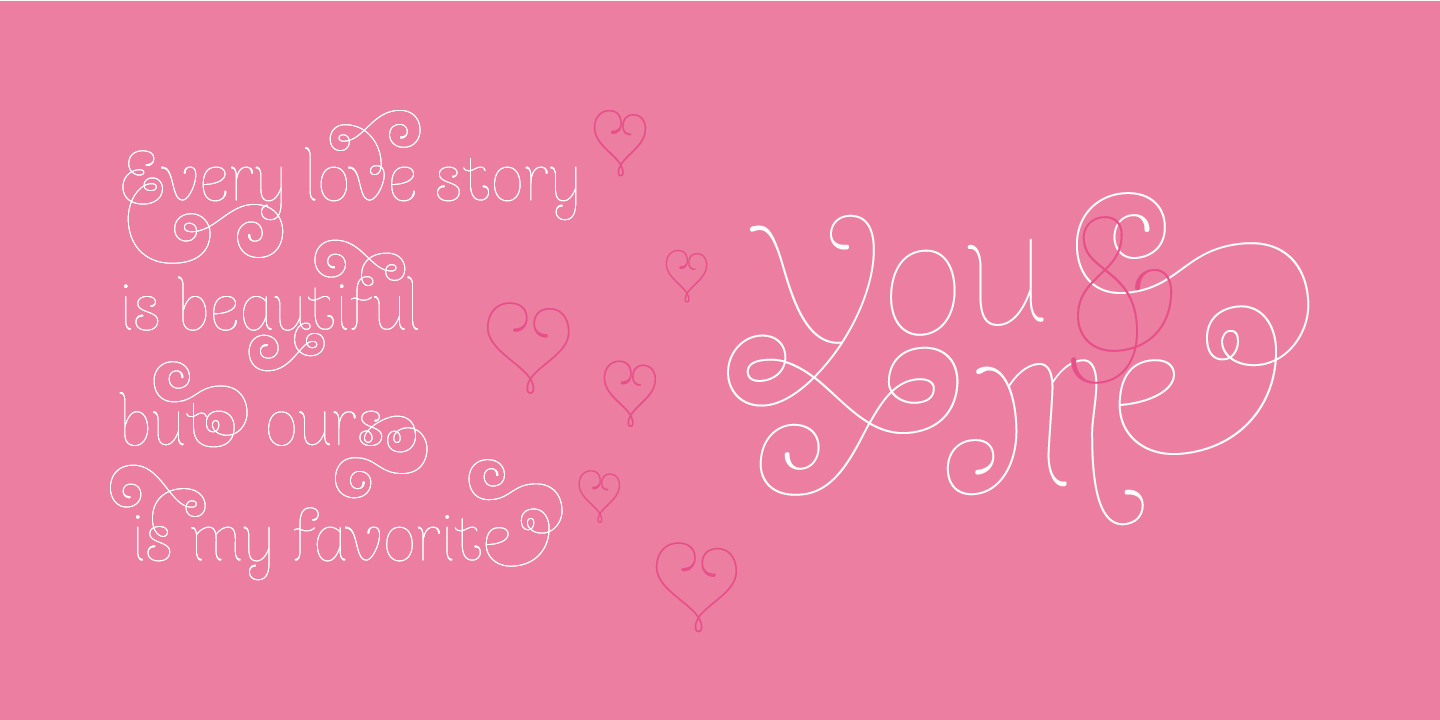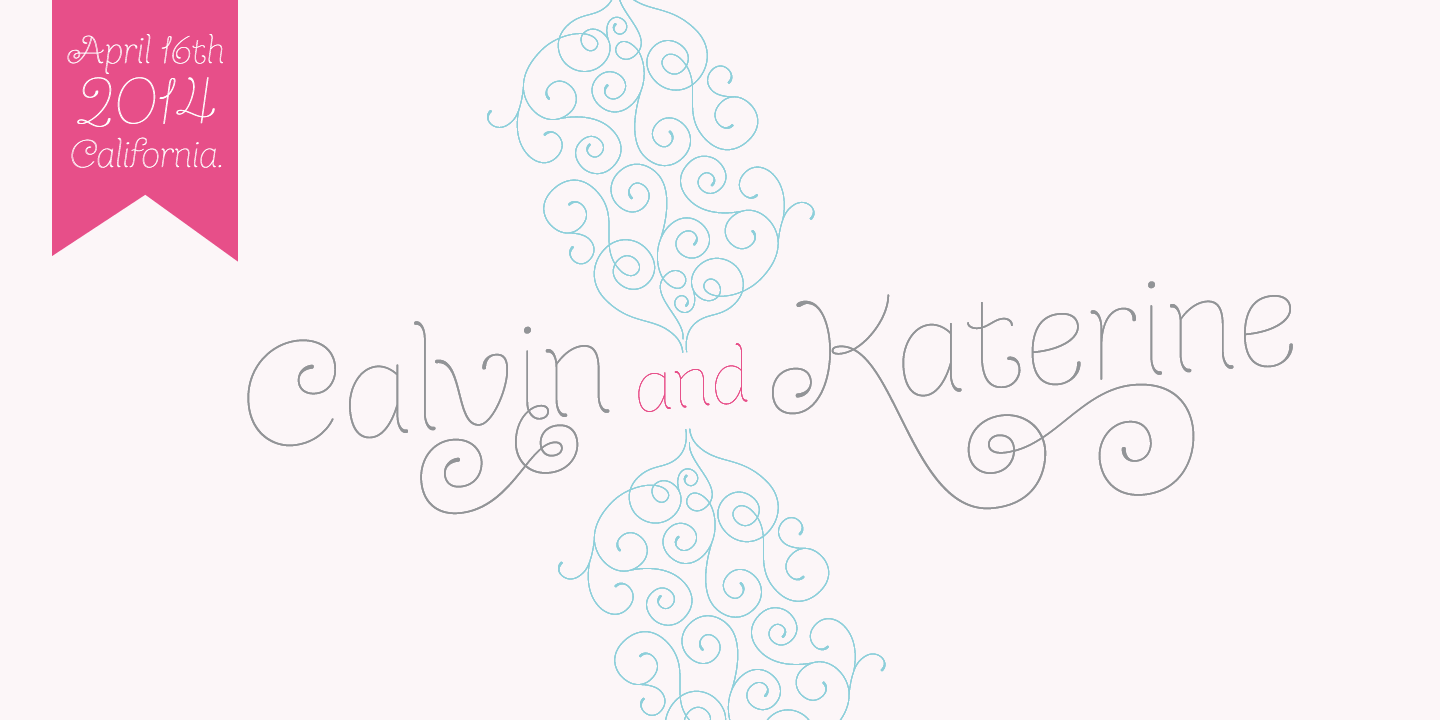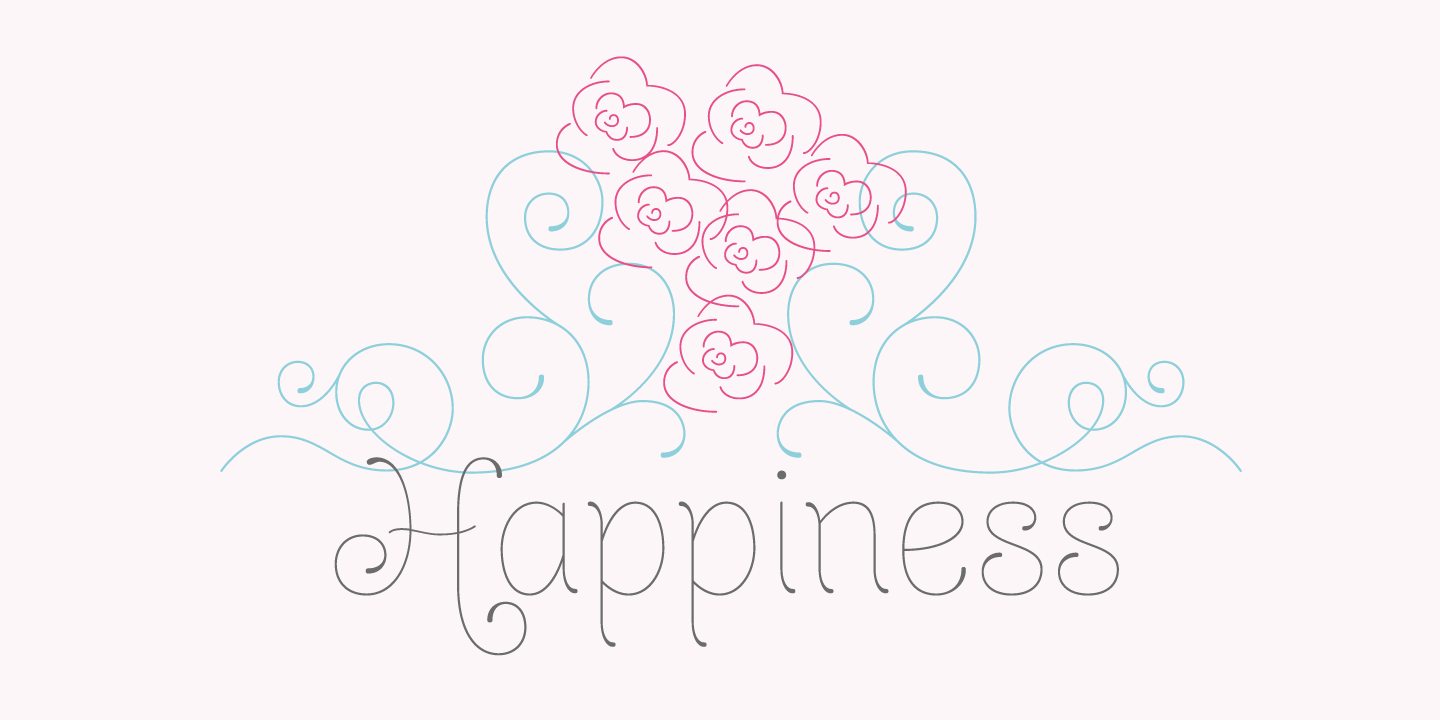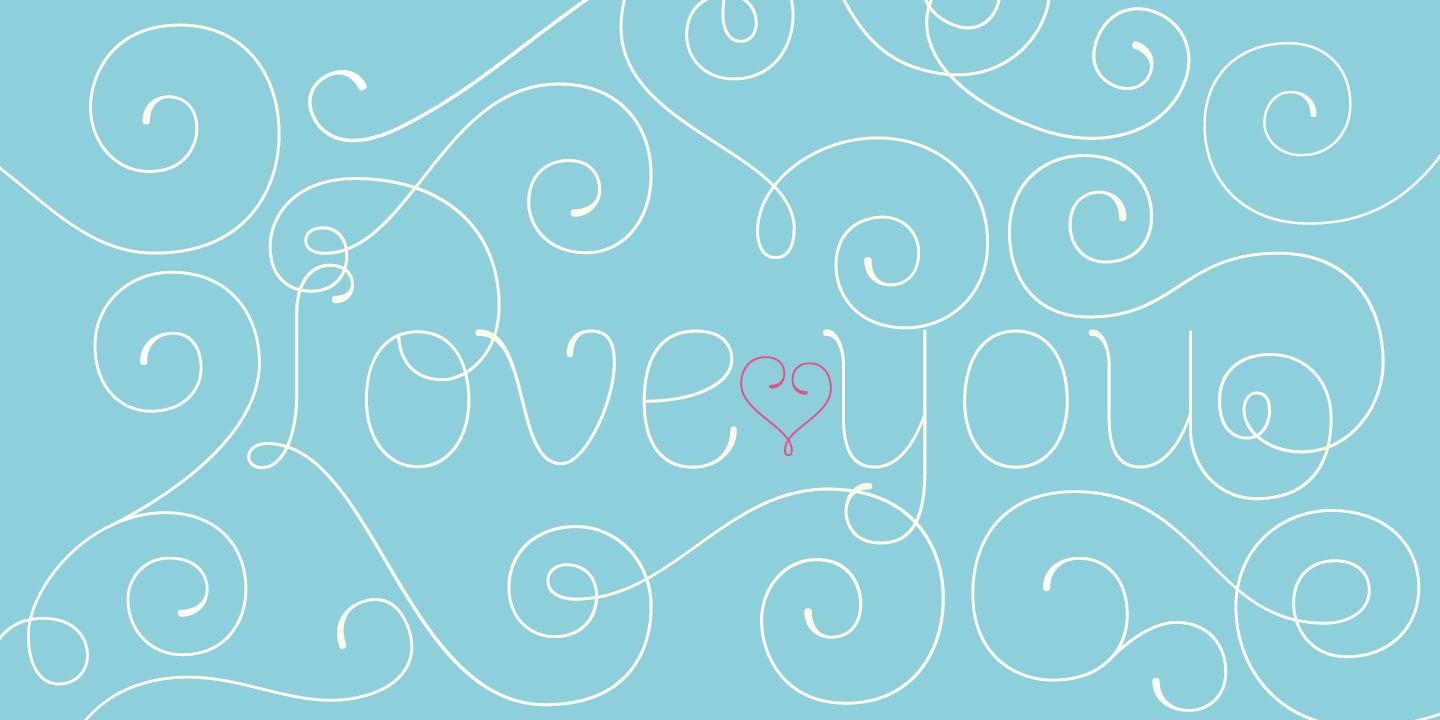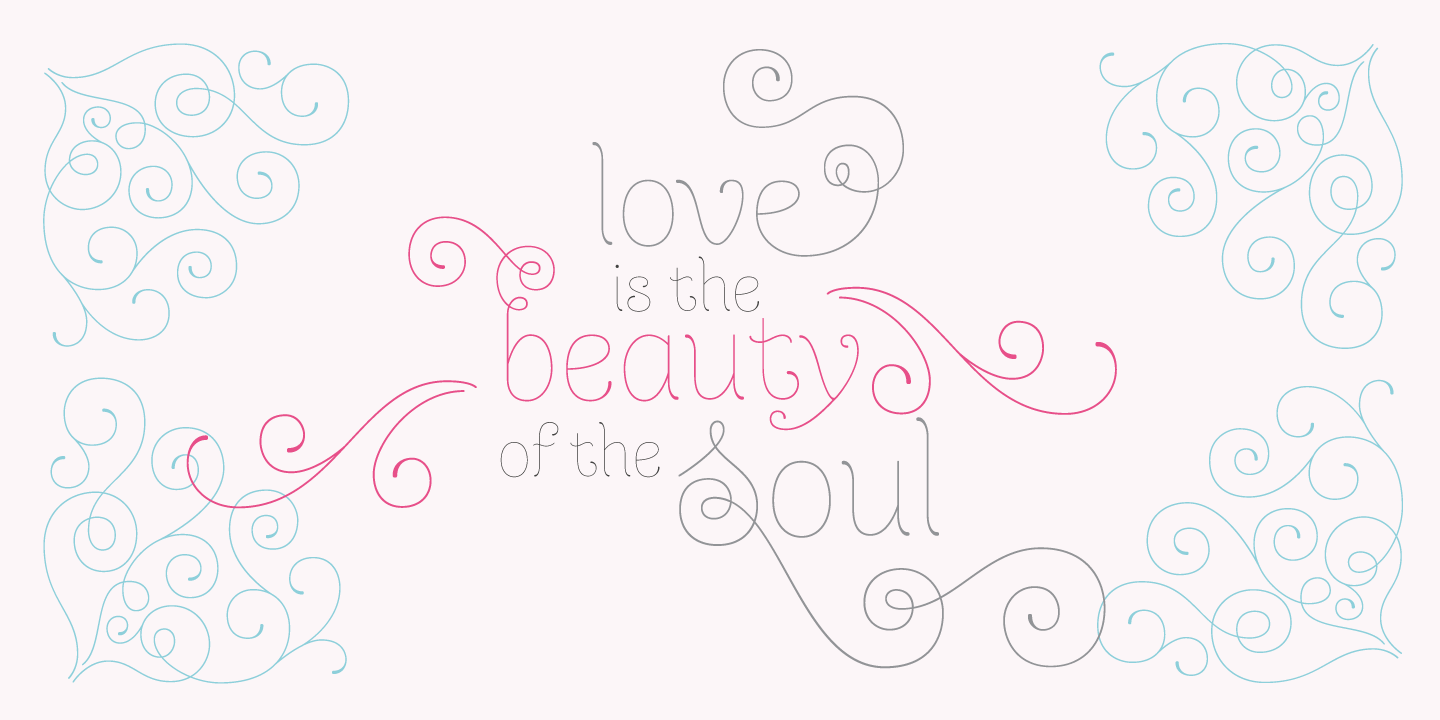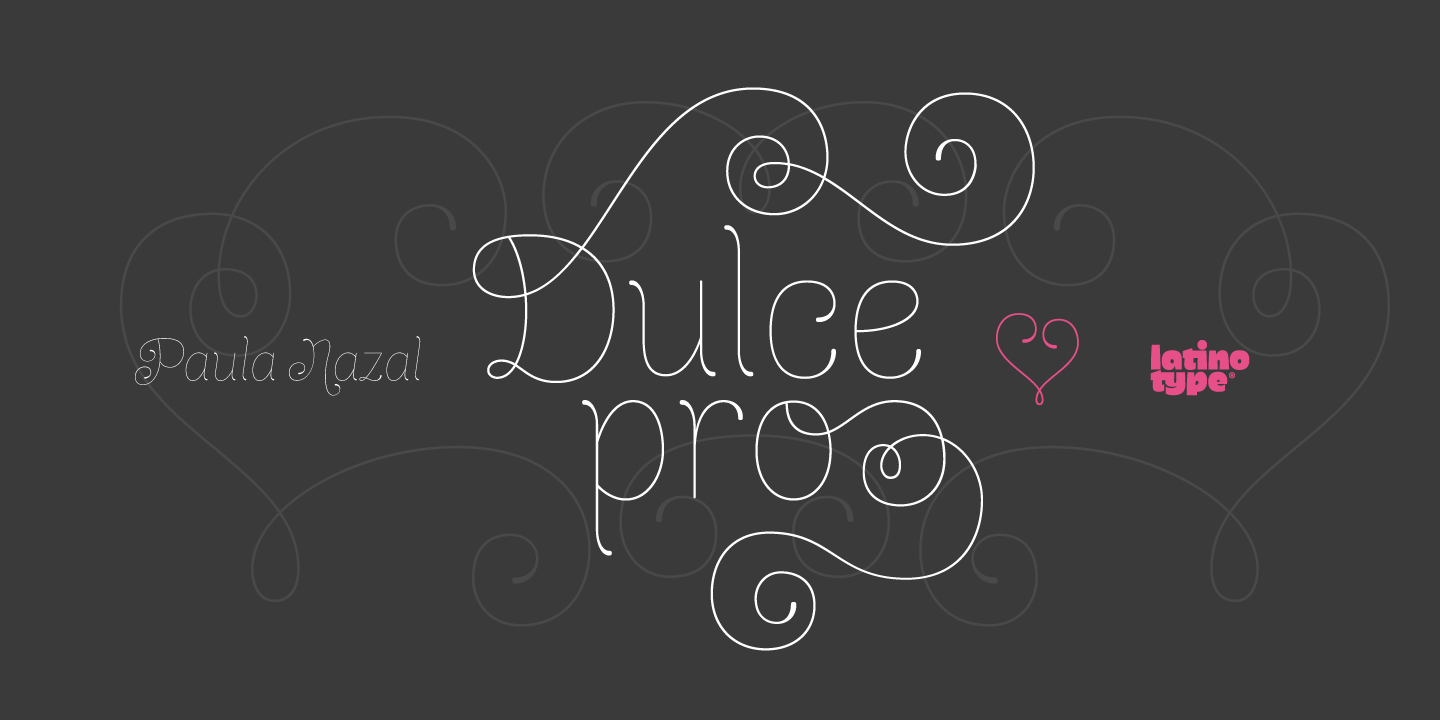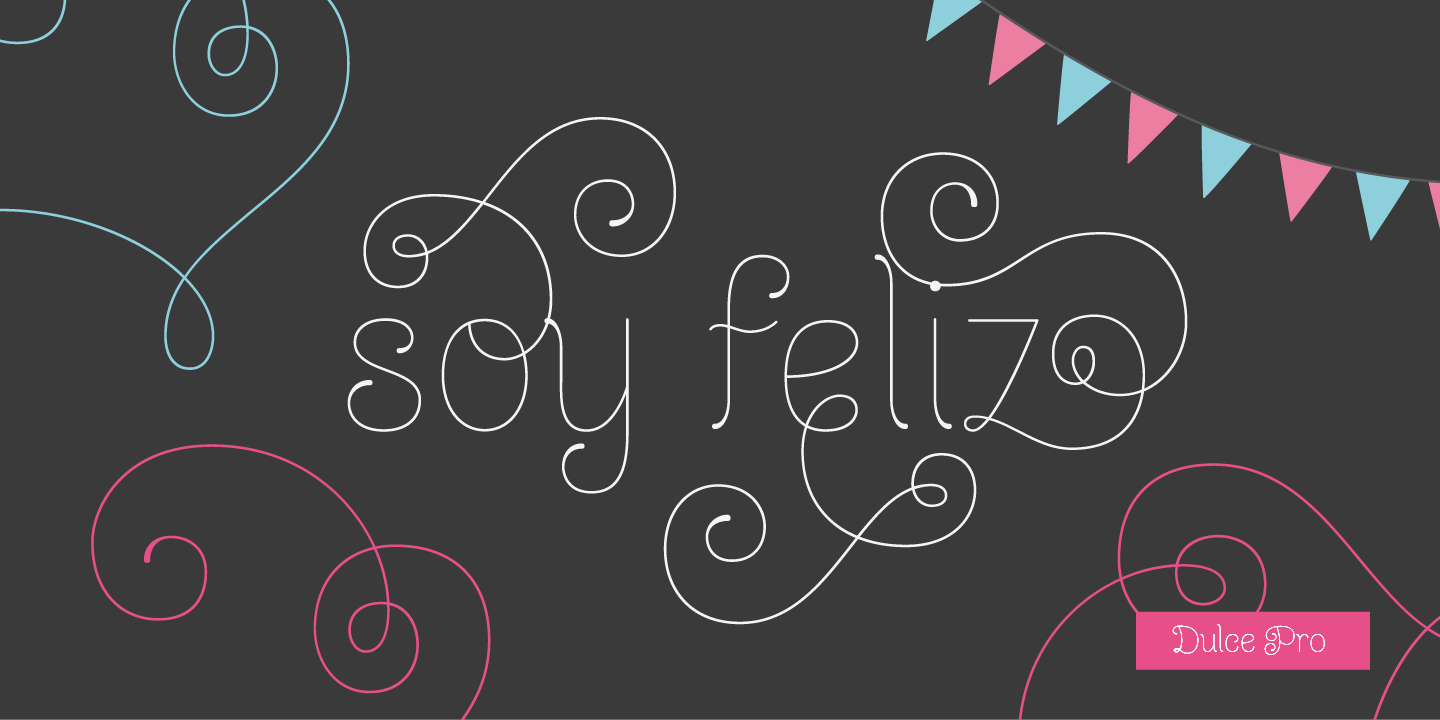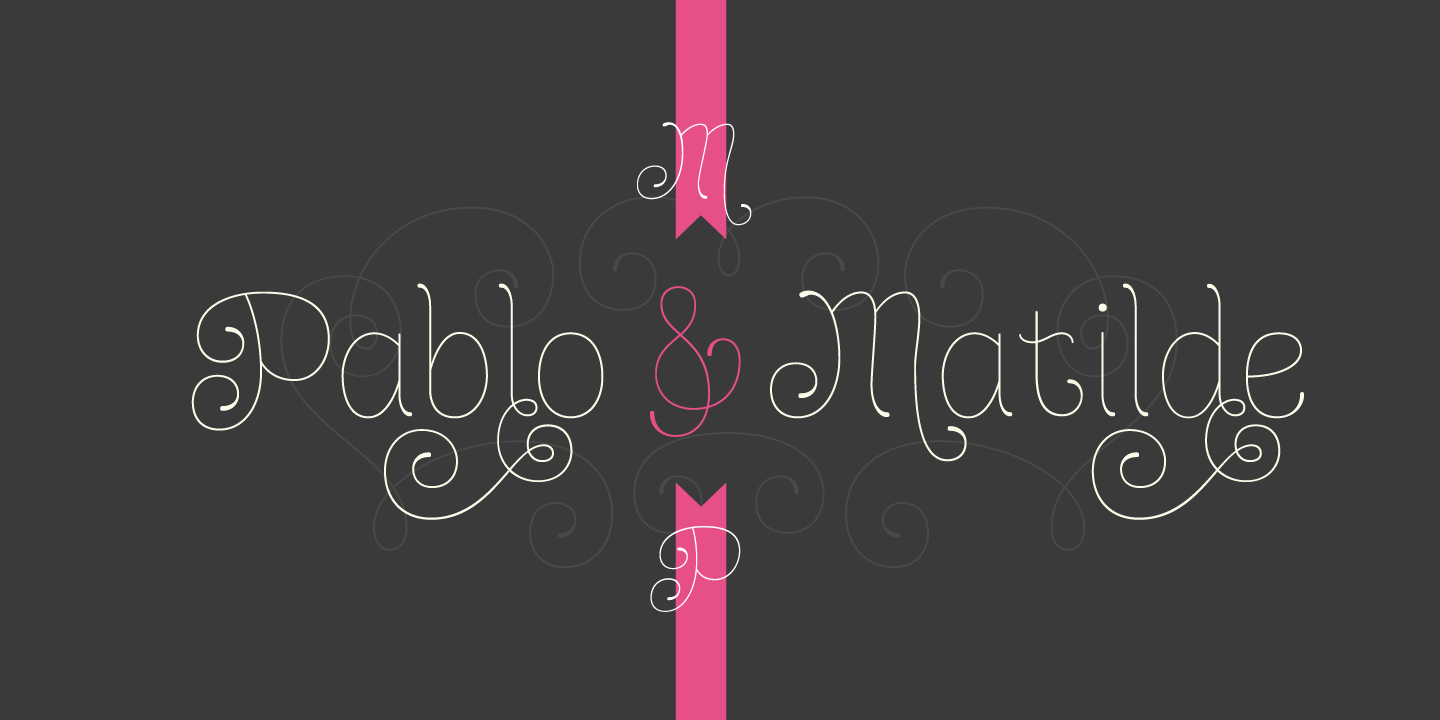
Latinotype's Dulce pro (improved and changed version of Dulce), is a friendly swash typeface, with monoline, elongated, teardrop terminals. This thin font is romantic and has certain characteristics of a script giving it an elegant impression. Dulce pro, includes a special range of initial capital letters with swashes.